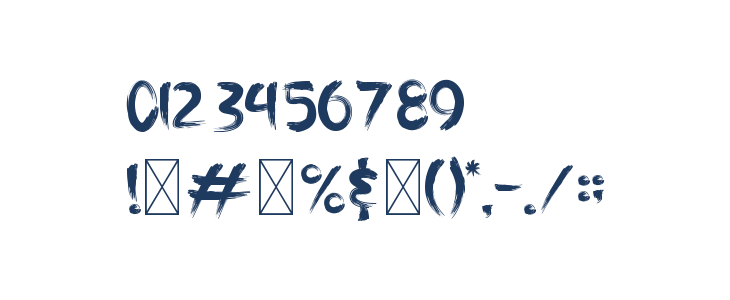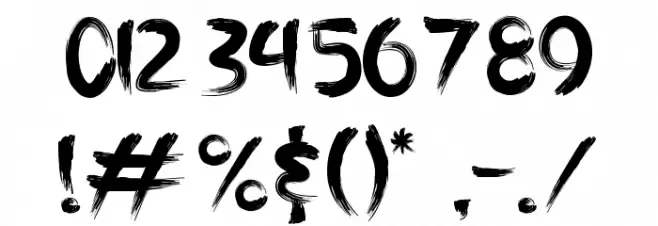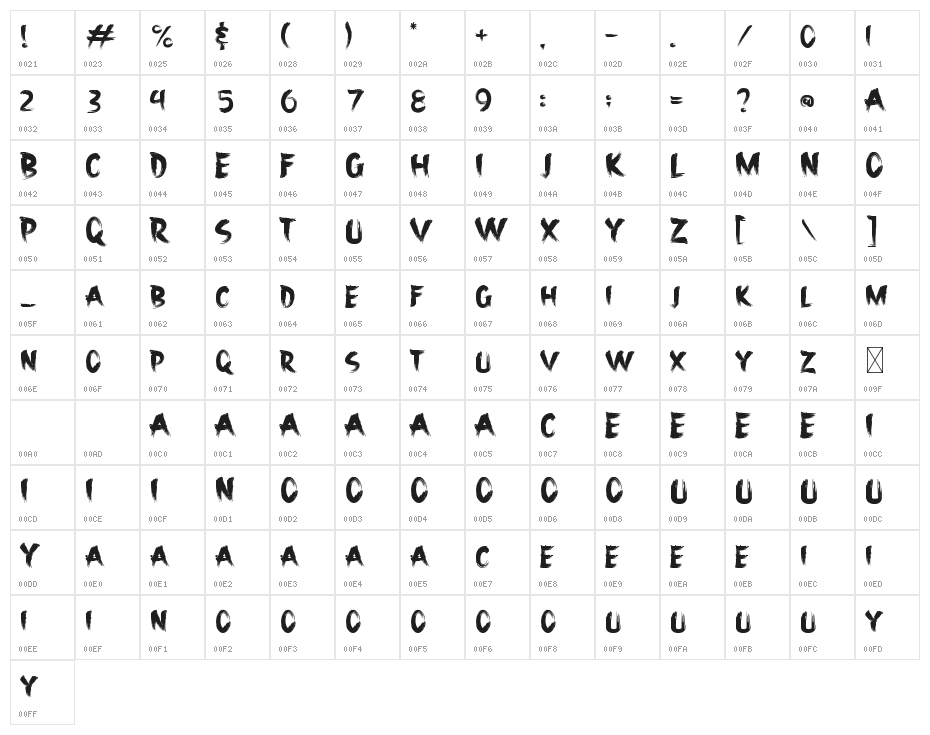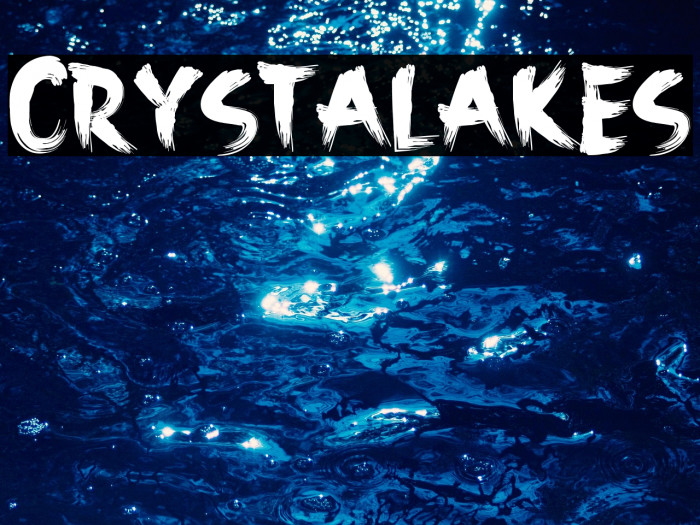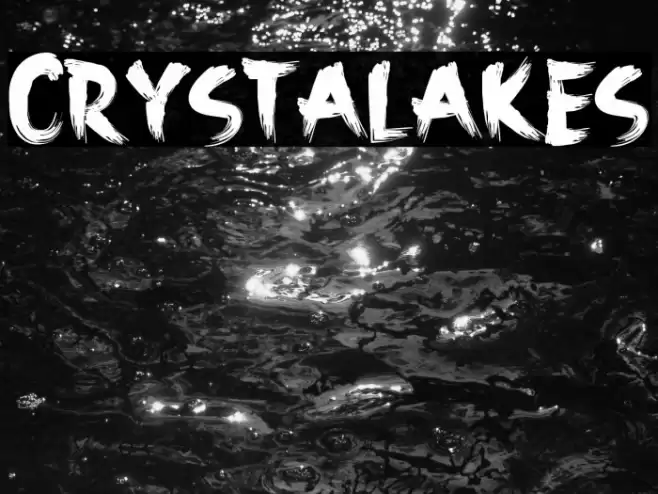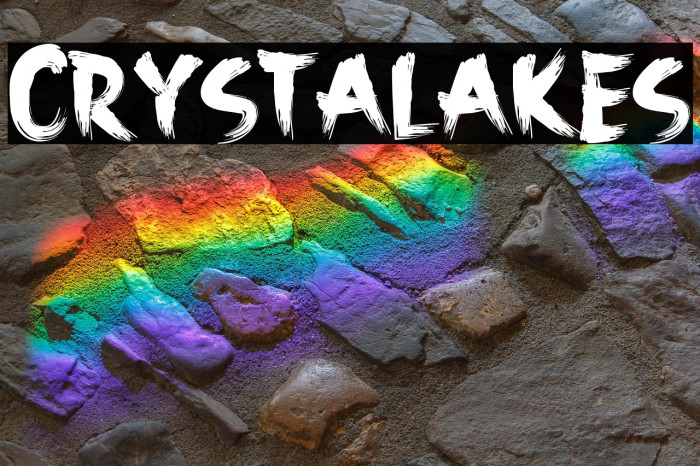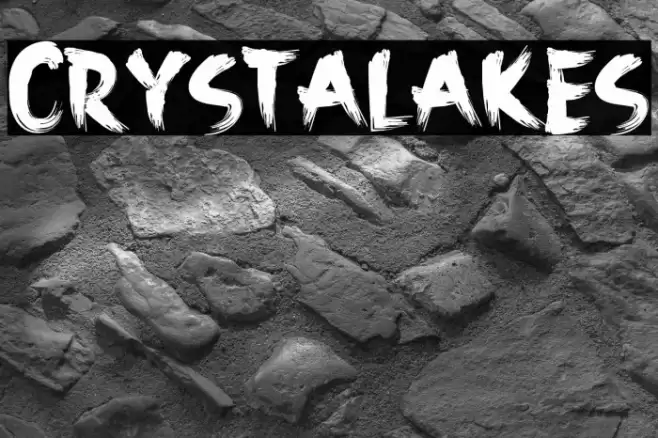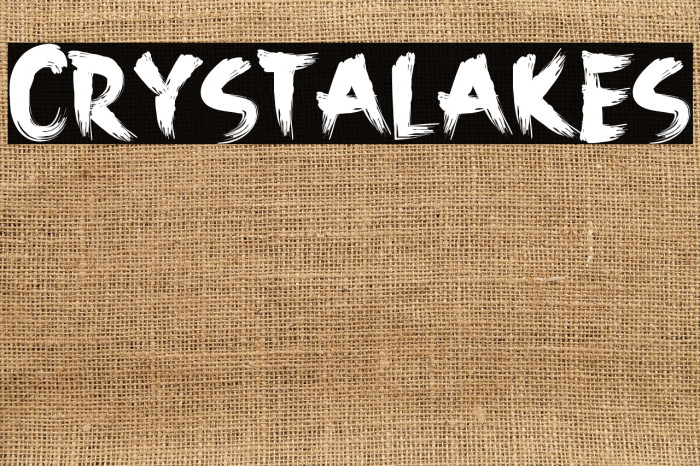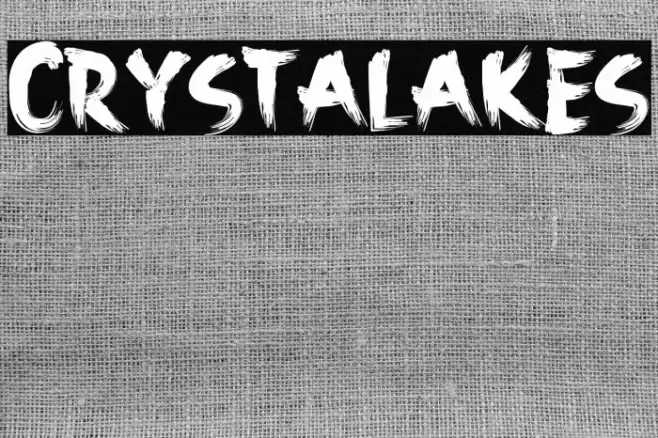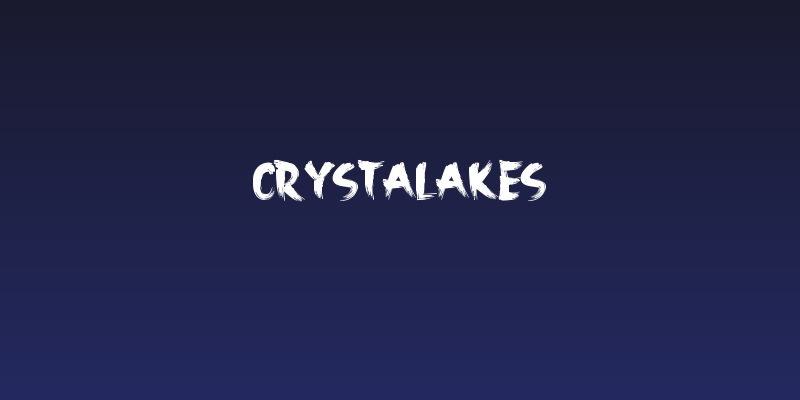
Crystalakes Font
Crystalakes Description
This font features a bold and dynamic brushstroke style, giving it a raw and energetic appearance. The characters are crafted with irregular, jagged edges, reminiscent of hand-painted lettering. This adds a sense of movement and intensity to the text. The uppercase and lowercase letters maintain a consistent style, with each character exhibiting unique brush textures and varying stroke widths. The numbers and special characters follow the same aesthetic, ensuring a cohesive look across all elements. This font is ideal for projects that require a strong visual impact and a touch of artistic flair.